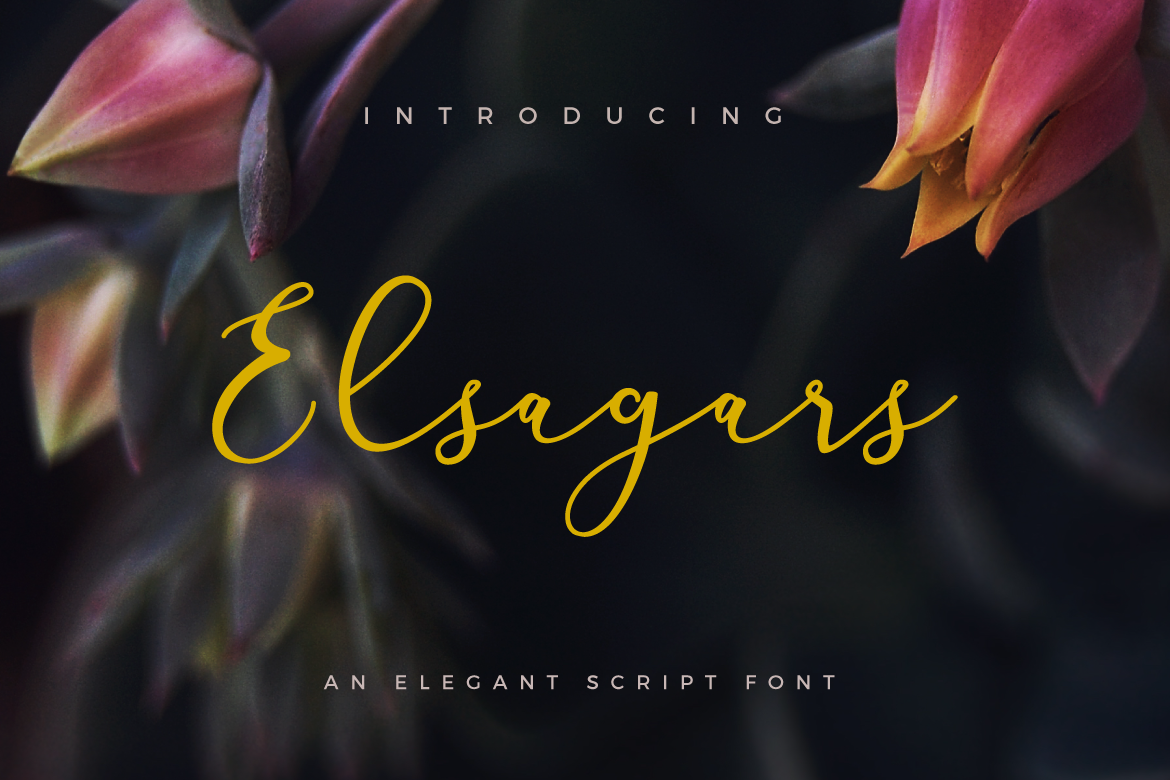
Elsagars is an elegant script font.
Elsagars typeface is suitable for any design needs, modern invitation design, branding, blog design, modern advertising design, invitation, Art Quote, Home decor, Book/Cover Title, Invitation, special events, birthday, custom mug, pillow, t-shirts, any brush lettering needs and more.
Elsagars